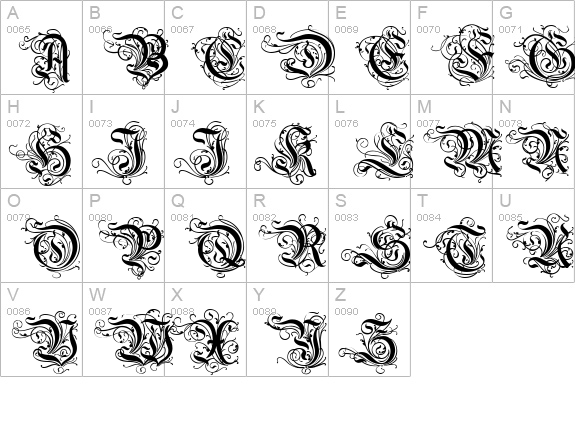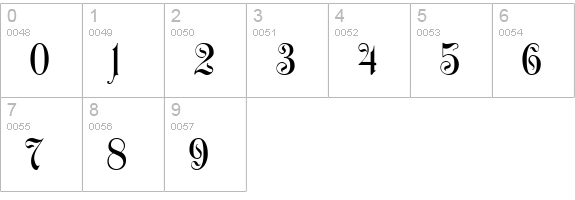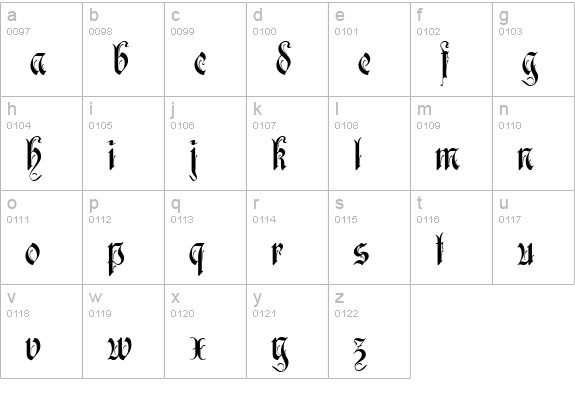
Ruritania font is a stunning display typeface that exudes elegance and sophistication. With its intricate details and graceful curves, this font is perfect for adding a touch of luxury to any design project. Its timeless appeal makes it versatile enough for both traditional and modern layouts. What sets Ruritania font apart is not just its impeccable design, but also the fact that it is available for free download at FontsMarket.com. This means that you can easily access this exquisite font without any cost, making it a valuable addition to your font collection. Whether you're working on branding, invitations, posters, or any other creative project, Ruritania font will elevate your design with its beauty and charm. Download this font today and bring a touch of sophistication to your next project.